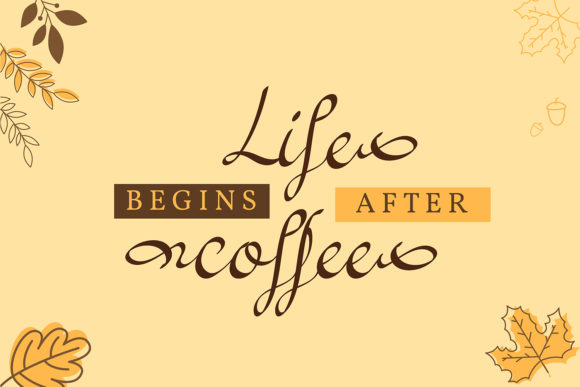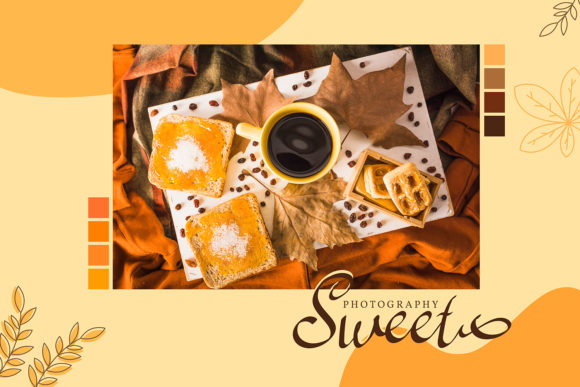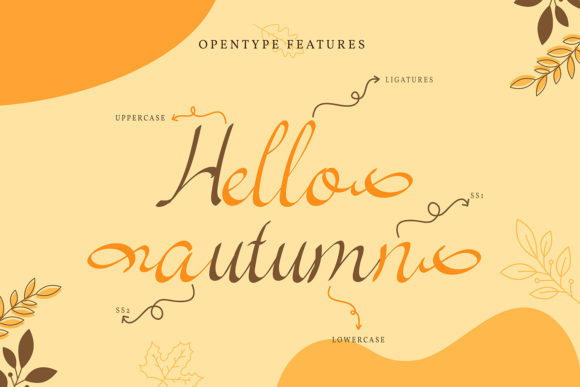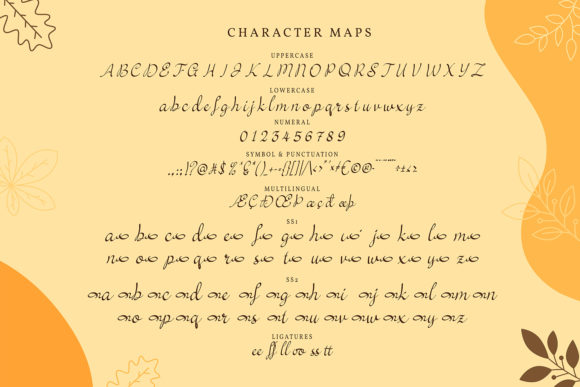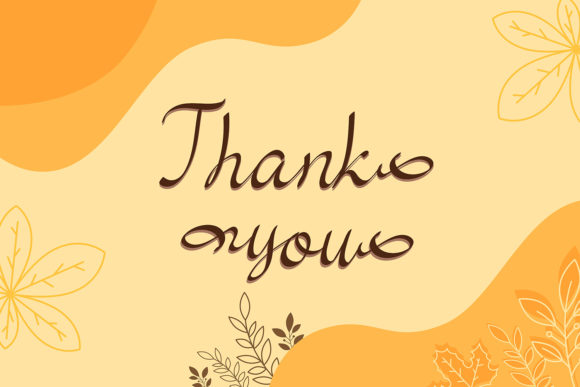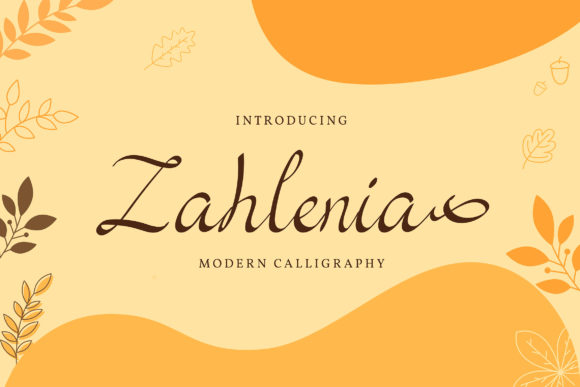
About Zahlenia Font
Zahlenia is a stylish and delicate script font that exudes elegance and sophistication. With its clean, thin, and smooth vibe, this font is the perfect choice for adding a touch of refinement to your designs. Whether you’re working on branding, invitations, logos, or any other creative project, Zahlenia will make a lasting impression.
The clean and thin strokes of Zahlenia give it a sleek and modern look, while still maintaining a sense of delicacy. The smooth curves and flowing letterforms add an air of grace and beauty to the font, making it visually pleasing and captivating. Zahlenia’s stylish appearance sets it apart and makes it suitable for a wide range of design applications.
This font’s versatility allows it to shine in various design contexts. It is well-suited for branding projects, where it can bring a sense of sophistication and elegance to logos and visual identities. Zahlenia also works beautifully on invitations, adding a touch of refinement and personalization to wedding invitations, event announcements, or party invitations. Its delicate and stylish script is ideal for projects that require an element of sophistication and modernity.
The PUA encoding of Zahlenia ensures that accessing its full range of glyphs and swashes is effortless. The font provides a wide selection of decorative elements, alternate characters, and ligatures, allowing you to customize and enhance your designs with ease. The versatility of these additional glyphs and swashes gives you the freedom to create unique and eye-catching typography that stands out.
Zahlenia’s legibility and readability make it a practical choice for conveying your message effectively. The balanced letterforms and well-spaced characters ensure clear and easy-to-read text, ensuring that your audience can engage with your design without any difficulty. The font’s clean and thin design doesn’t compromise its readability, making it suitable for various sizes and contexts.
Embrace the stylish and delicate charm of Zahlenia and let it elevate your designs to new heights. With its clean, thin, and smooth vibe, this font brings a touch of refinement and elegance to any project. Access the full potential of Zahlenia’s PUA encoded glyphs and swashes to customize and personalize your designs, creating visually stunning and memorable typography. Whether you’re designing logos, invitations, or any other creative project, Zahlenia will make a lasting impression with its stylish and delicate script.